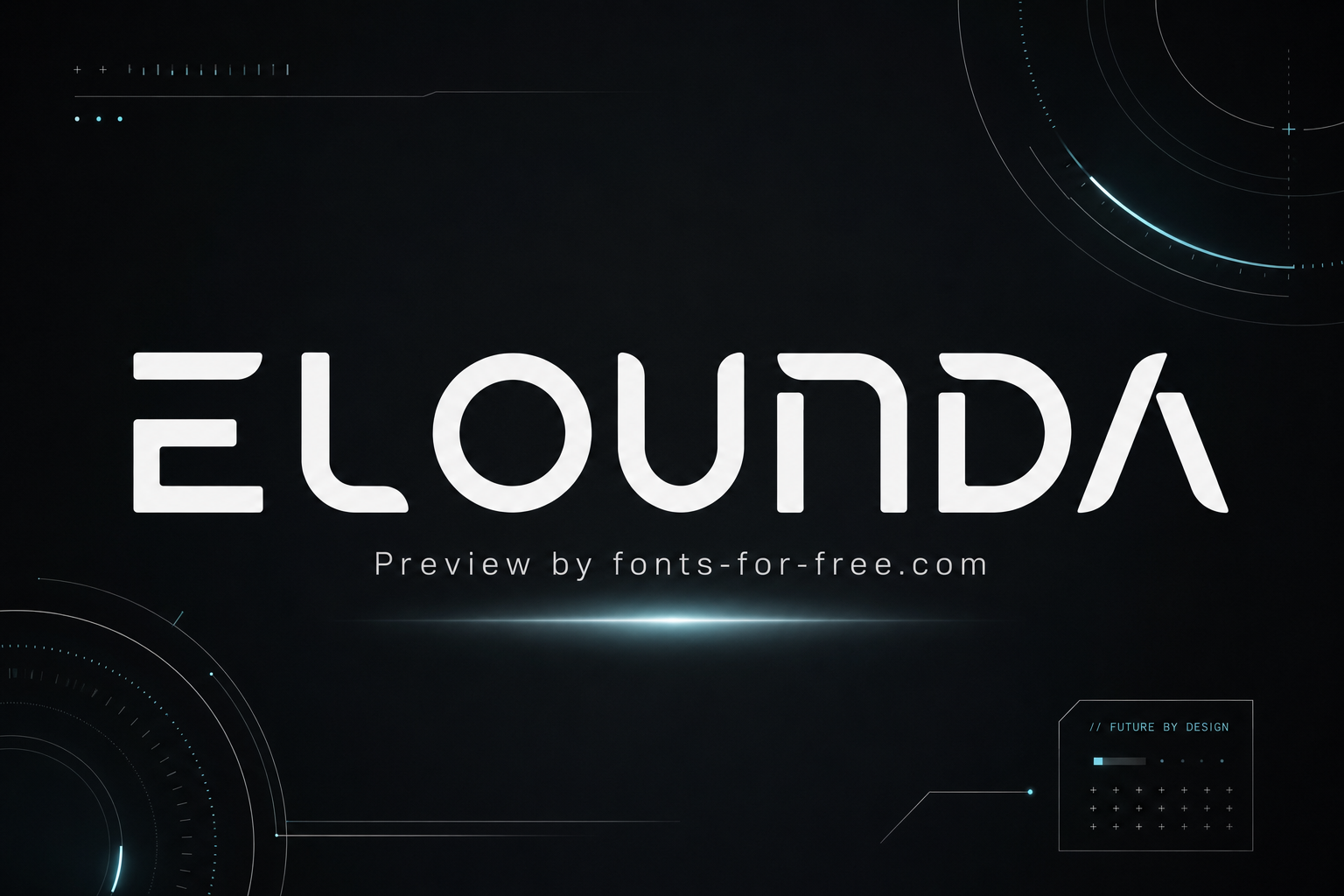
Elounda
Elounda is a geometric display font designed by Valerio Brotto (Silverblur_type). It is built from simple rounded modules, straight cuts, and constant-thickness strokes, giving the letters a minimal, technical rhythm. The design uses wide circular forms, squared arches, open breaks, and angular diagonals, with lowercase characters following the same uppercase-style structure. Its compact, constructed shapes create a clean futuristic mood, while some abstract letterforms make it clearer at large sizes than in long text. It suits short headings, logos, branding systems, poster titles, packaging labels, and other graphic layouts. The font is licensed under the SIL Open Font License 1.1.